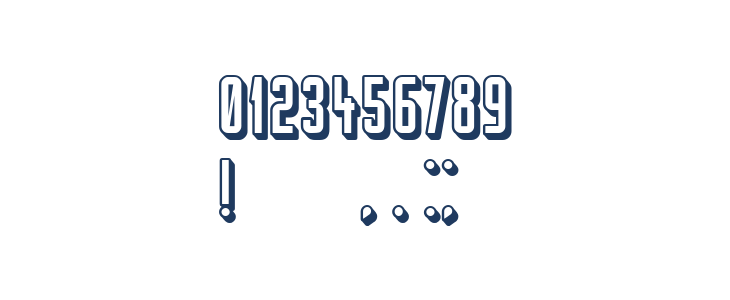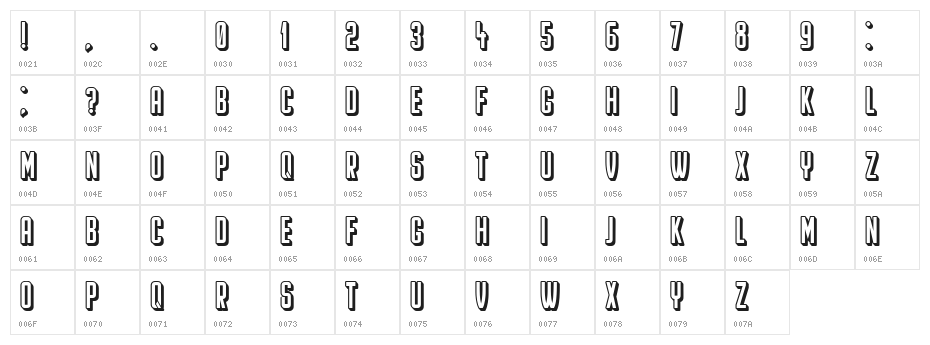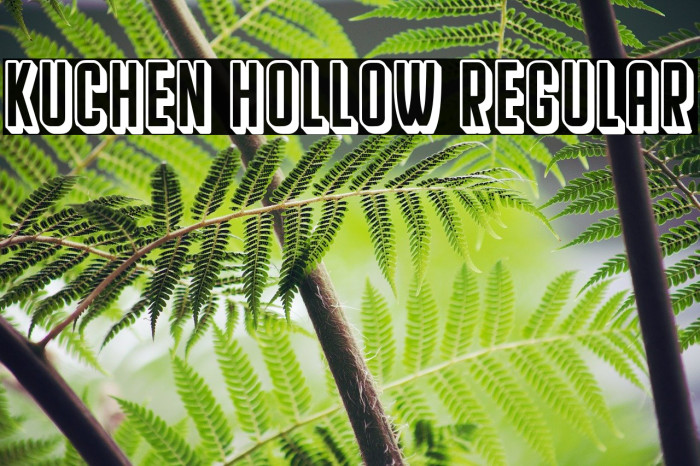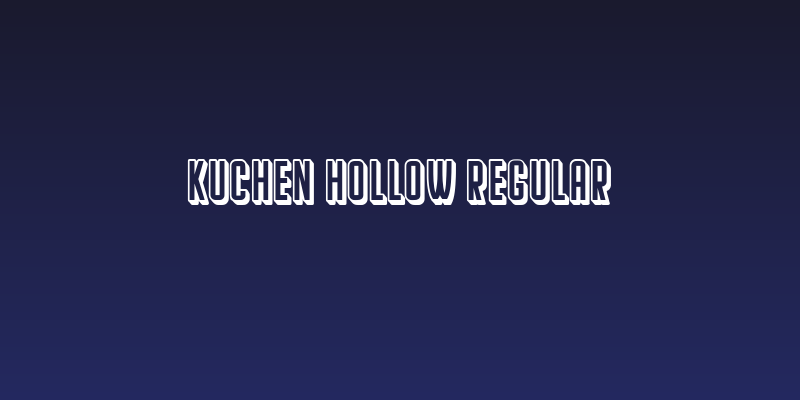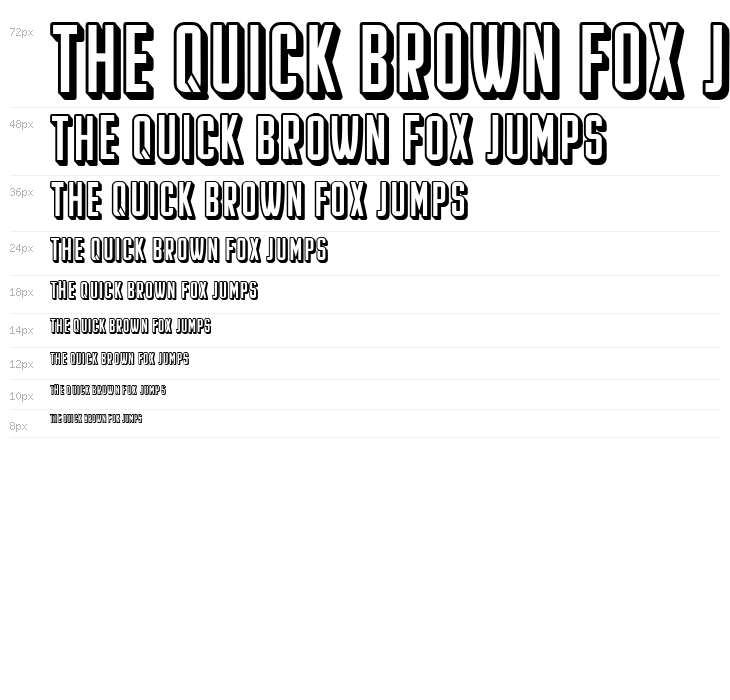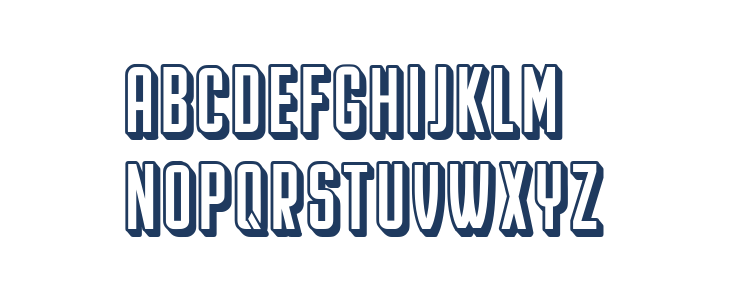
Kuchen Hollow Regular Font
Kuchen Hollow Regular Description
This font features a bold, hollow design with a strong geometric structure. The uppercase letters are prominent and have a three-dimensional effect, giving them a standout appearance. The characters are outlined with a thick border, enhancing their visibility and making them suitable for impactful designs. The numbers and special characters maintain the same bold, outlined style, ensuring consistency across all elements. This font is ideal for projects that require a striking and modern look, such as posters, headlines, and branding materials.